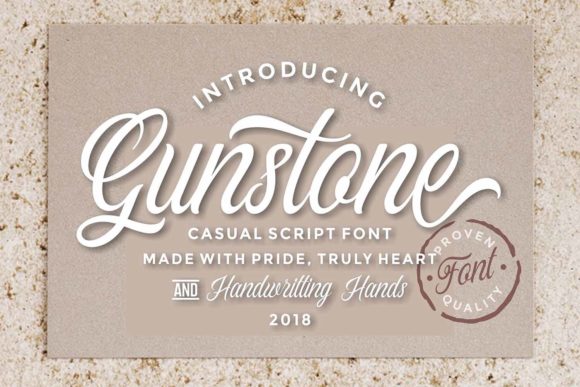
Introducing Gunstone Script Font, a timeless masterpiece that will effortlessly enhance your designs with its vintage charm. Created by the renowned Ngene, this captivating script embodies the allure of bygone eras.
Immerse yourself in its intricate strokes and graceful curves that evoke the nostalgia of yesteryear. Its authenticity sparks an emotional connection, transporting you to a realm where classic elegance meets modern artistry.
Gunstone's versatility extends from heartfelt love letters to eye-catching branding. Whether you seek a touch of vintage flair or a captivating statement, Gunstone effortlessly adapts to your vision.
Indulge in the endless possibilities that await you with Gunstone Script Font. Let its timeless beauty elevate your designs to new heights, capturing the hearts of those who lay their eyes upon your creations.